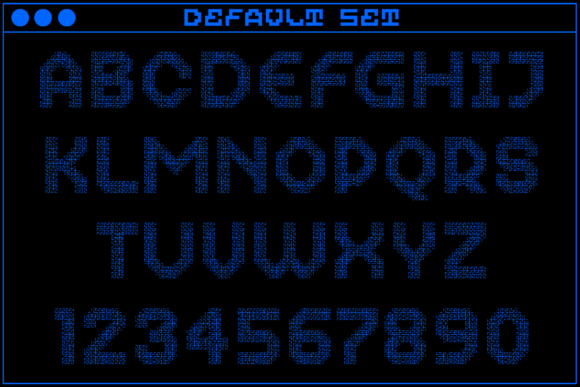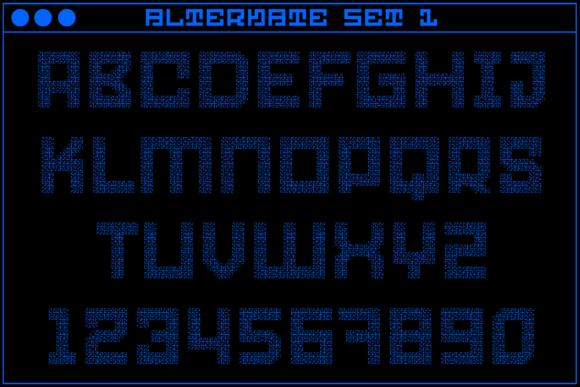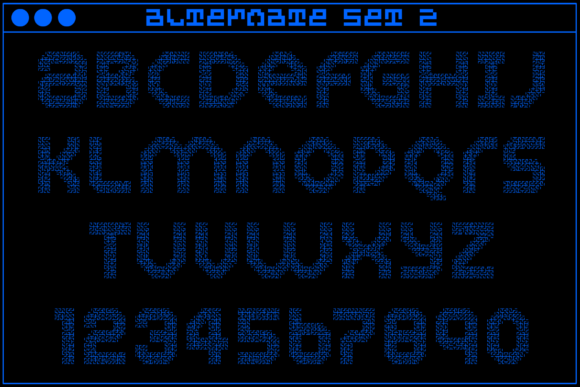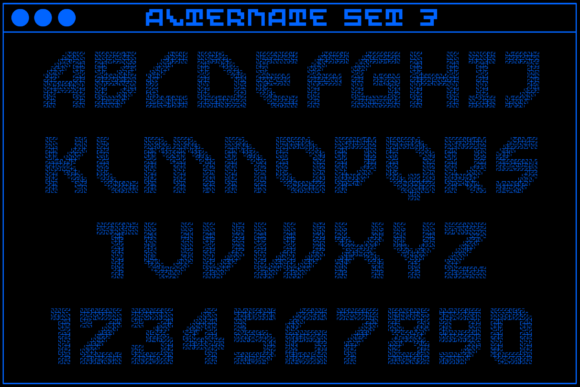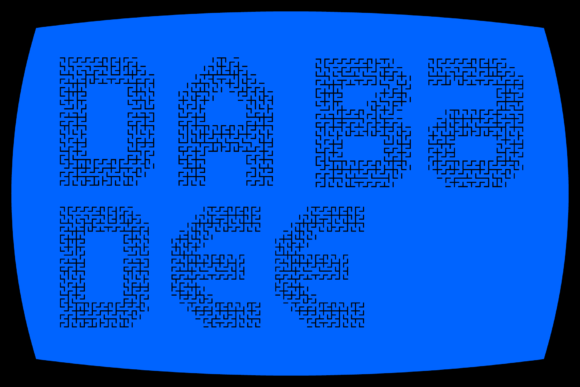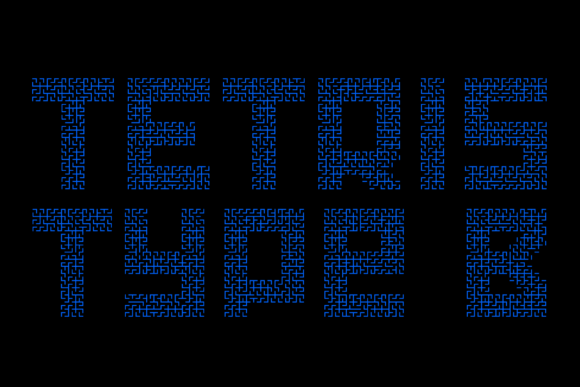
Introduction to MultiType Maze Labyrinth Light Font
Remember that moment when you finally nailed the perfect design for your creative project? The one that made your vision come to life? It’s all about finding the right tools to bring your ideas to the forefront, and that’s exactly where MultiType Maze Labyrinth Light Font comes in. This unique, pixelated display font is a game-changer for designers looking to add a touch of quirkiness to their designs.
With its cool, distorted shape and high-quality design, MultiType Maze Labyrinth Light Font is a valuable resource for any creative project. Whether you’re working on a logo, a website, or a social media campaign, this font can help you stand out from the crowd and make a lasting impression. And the best part? It’s available for free download, complete with a transparent background, making it easy to integrate into your design workflow.
Honest Review: MultiType Maze Labyrinth Light Font
I recently stumbled upon the MultiType Maze Labyrinth Light Font, and I must say it’s been a great addition to my design resource library. This font is perfect for creative projects that require a touch of sophistication and elegance.
What works well: ✨ The font’s high quality is immediately noticeable, with clean lines and a transparent background that makes it easy to use in various design contexts. I appreciate how versatile it is, suitable for both digital and print media. The font’s light weight also makes it easy to read, even in smaller sizes.
Overall, I’m impressed with the MultiType Maze Labyrinth Light Font. It’s a great free download for designers looking to elevate their creative projects. If you’re looking for a high-quality, elegant font, this is definitely worth checking out.
MultiType Maze Labyrinth Light Font is a high-quality design resource that offers a unique and creative way to express yourself in various projects. This font features a transparent background, making it perfect for any design need.
To get the most out of this font, experiment with different font sizes, colors, and combinations to create unique and eye-catching designs.
MultiType Maze Labyrinth Light Font is perfect for various creative projects, including logos, branding materials, social media graphics, and more.